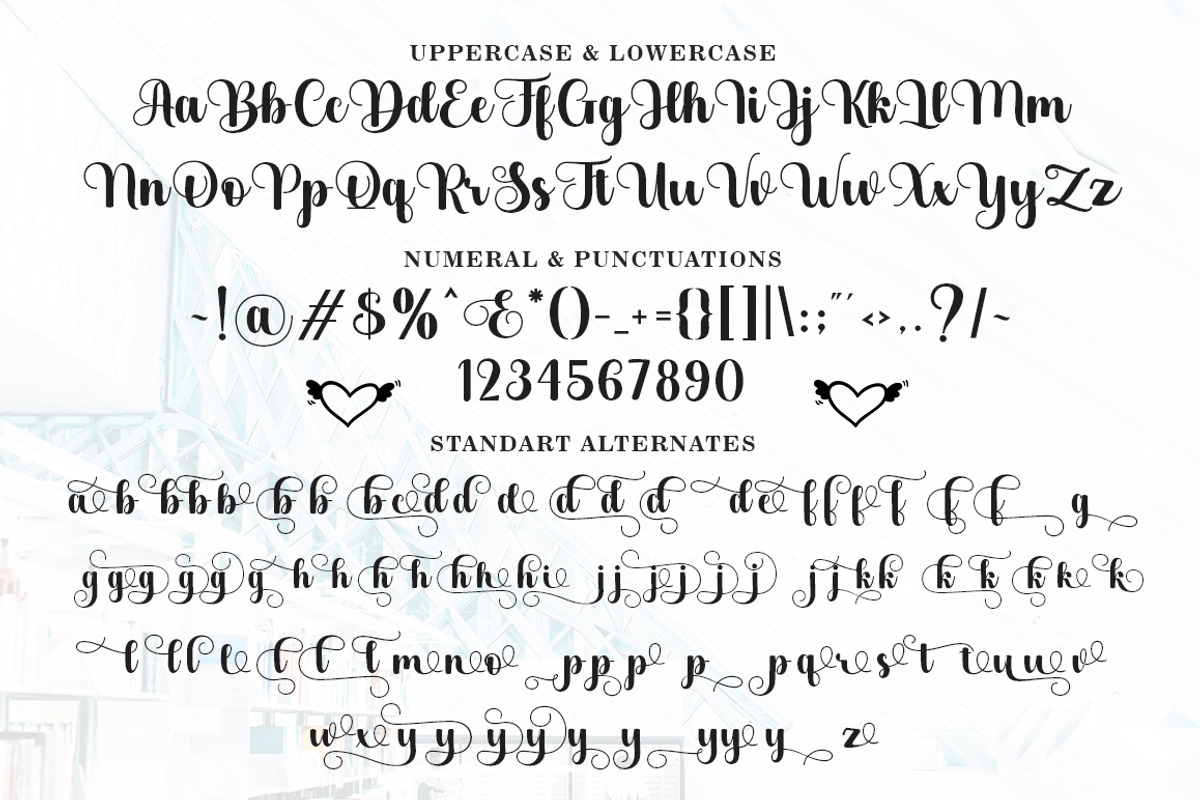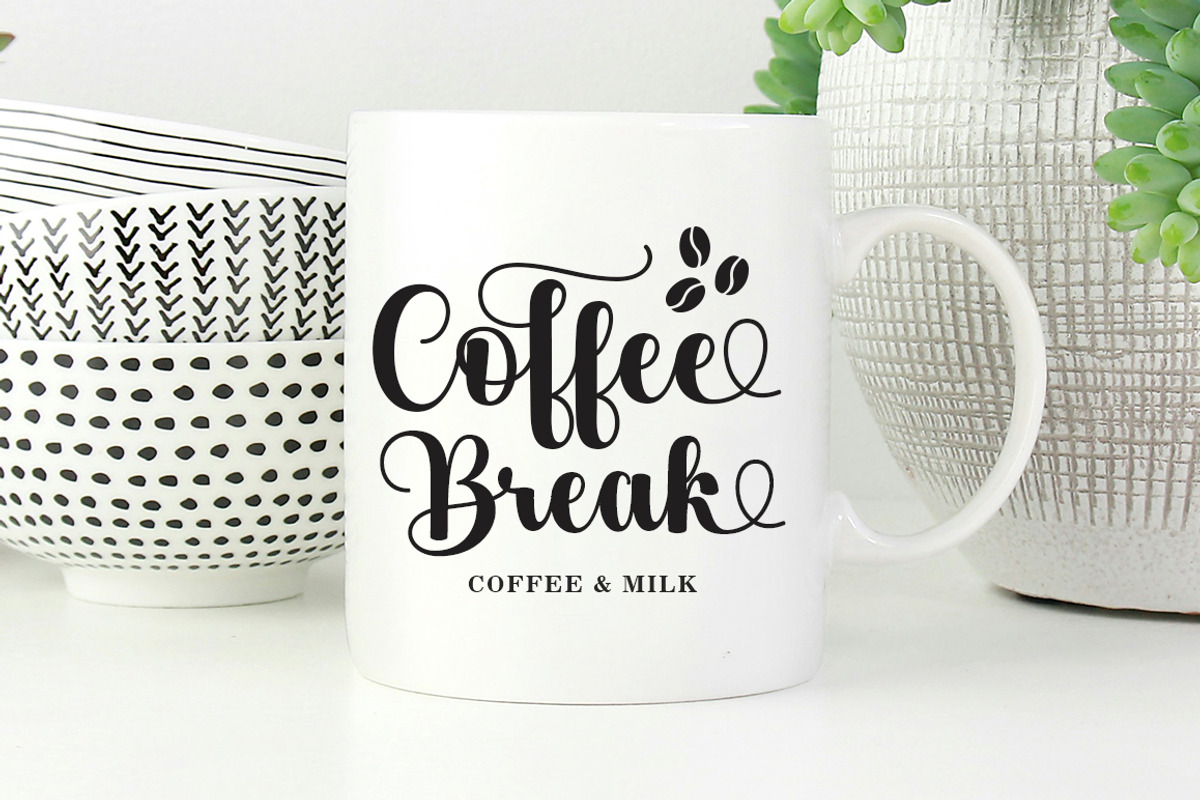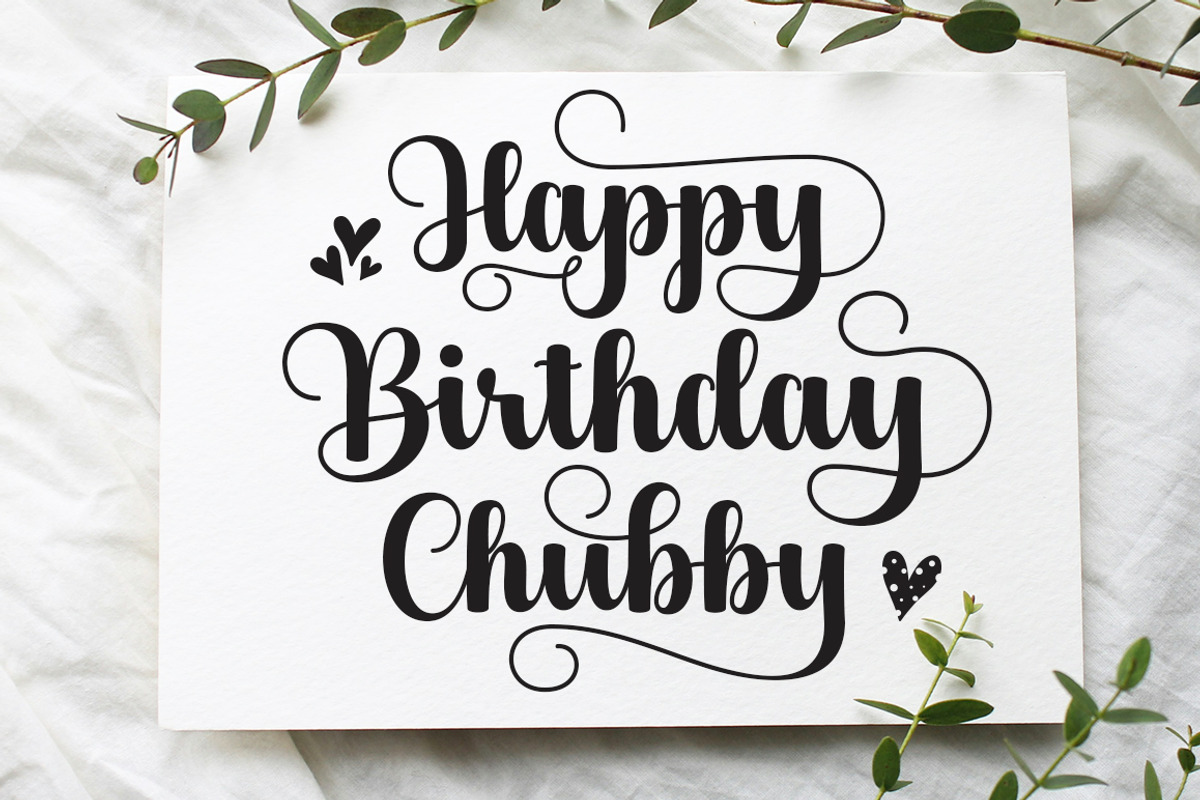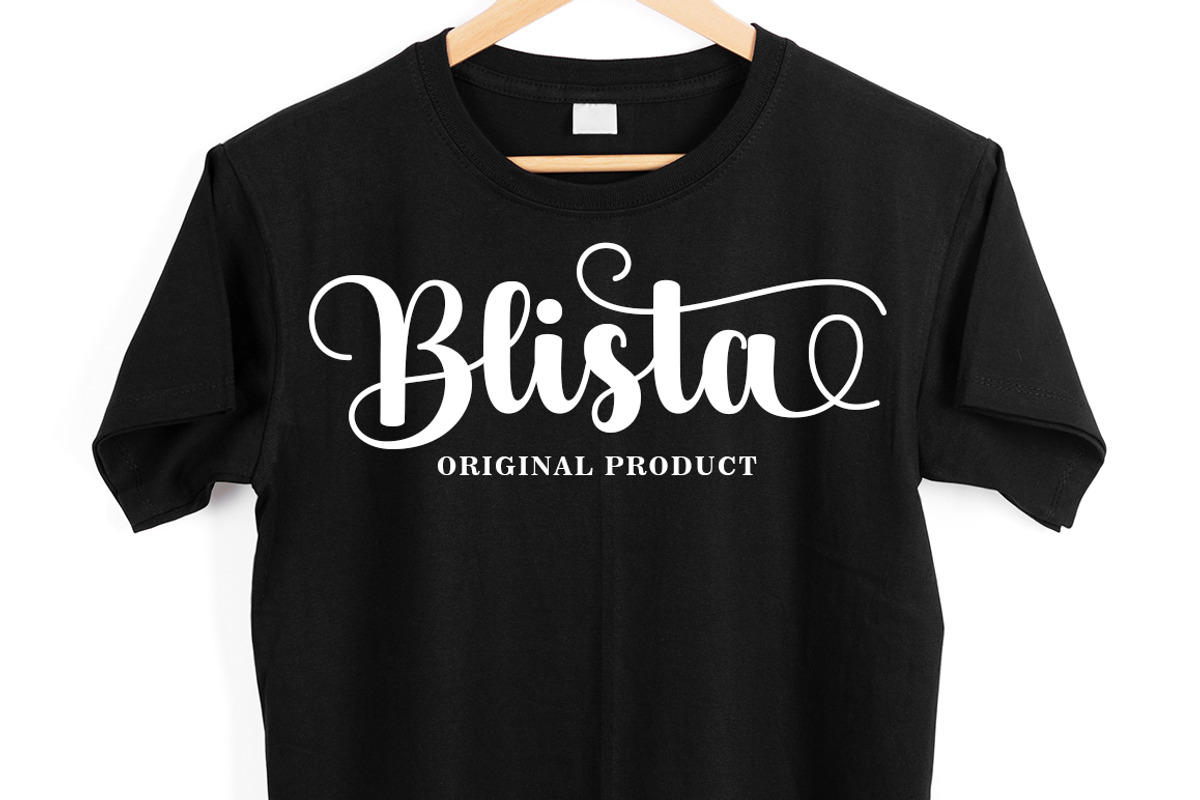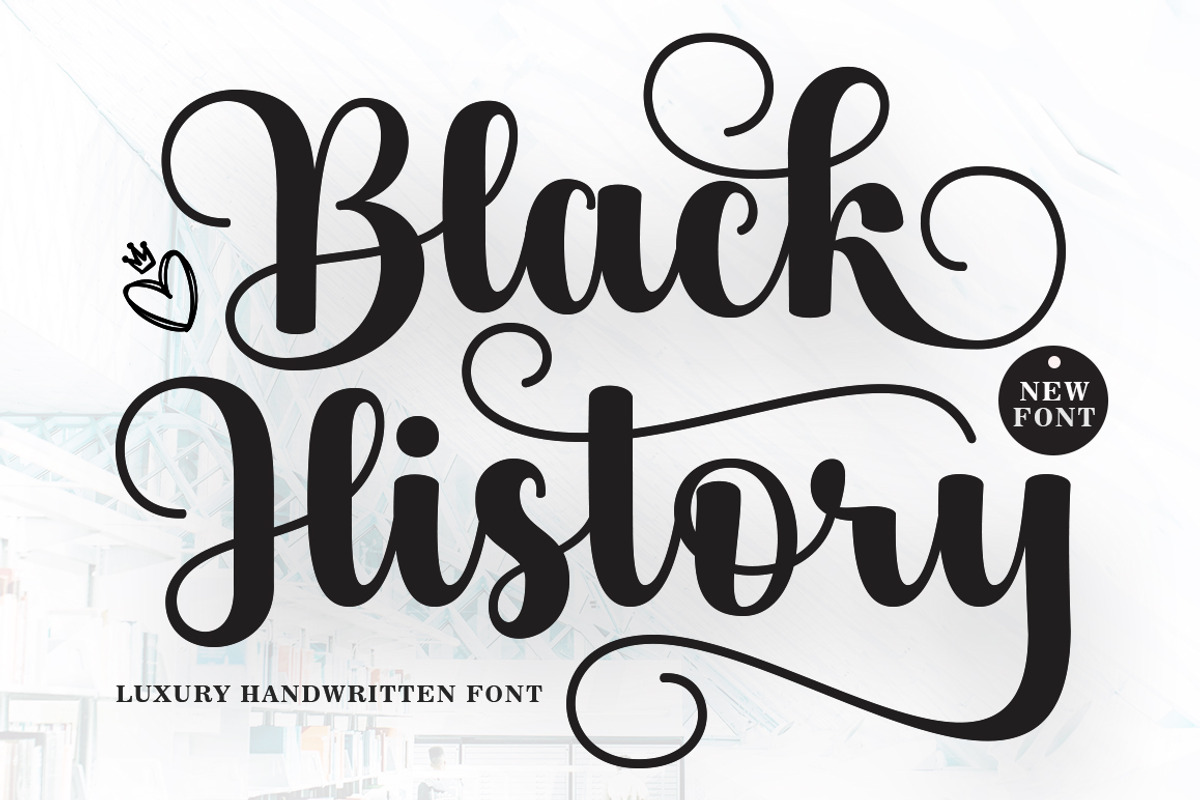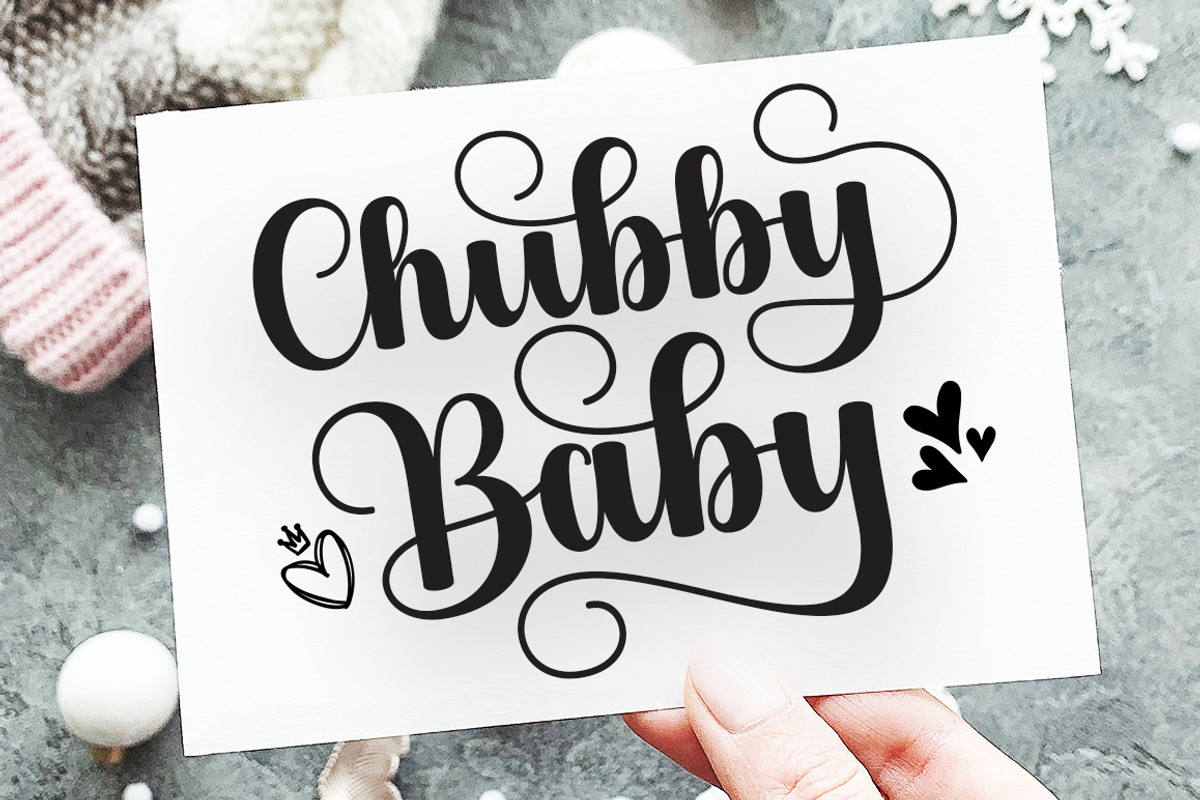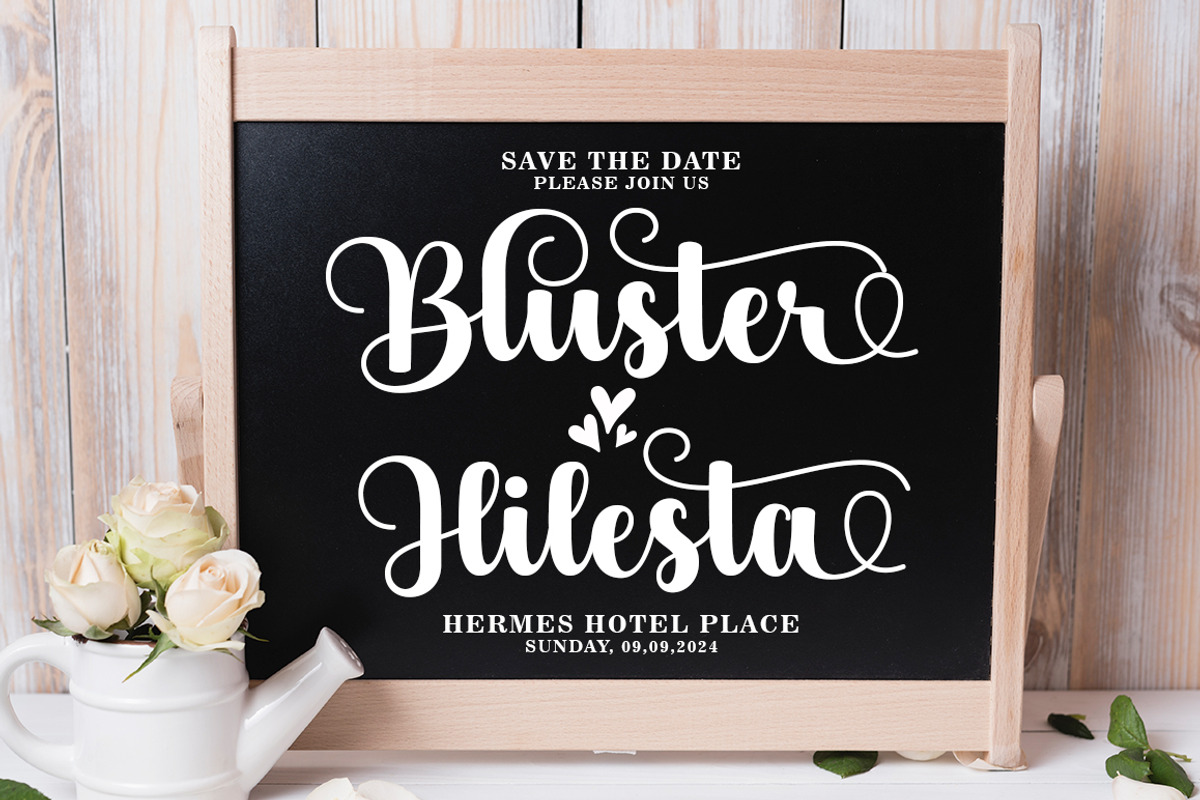
Black History
Black History is a beautiful handwritten font with a touch of love. Equipped with many glyphs Black History is perfect for branding projects, homeware design, product packaging, use in business cards, invitation cards, etc. Simply as a stylish text overlay on a background image or anything that needs an elegant touch. Files include: